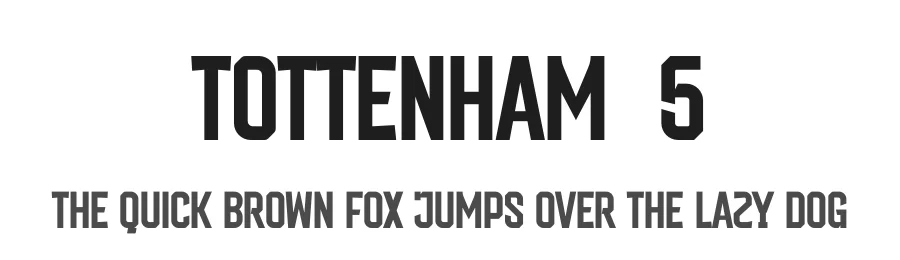
About Cracked Bold Font
Cracked Bold is a decorative font designed by rq std. It includes 59 glyphs, a regular weight, TTF (TrueType) format, and 107 languages. Cracked Bold is free to download; check the license details on this page before commercial use. Decorative fonts like Cracked Bold work best for logos, posters, packaging, and standout headlines.
Cracked Bold Font is a decorative font that shines as a display or heading face. Pair it with a clean sans-serif or serif font for body text β the contrast creates a clear hierarchy while the two styles stay balanced and easy to read.
Cracked Bold Font
by rq std